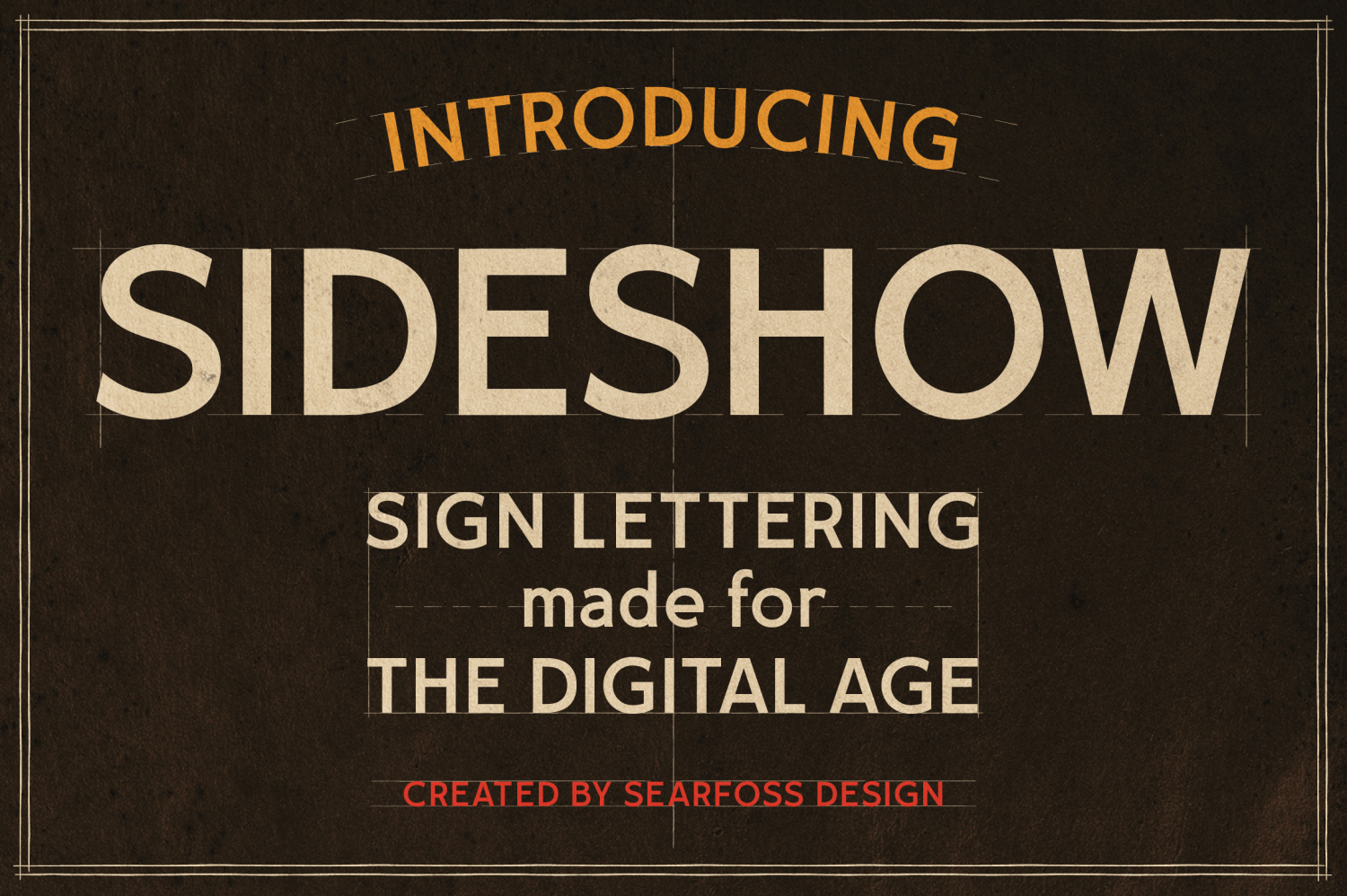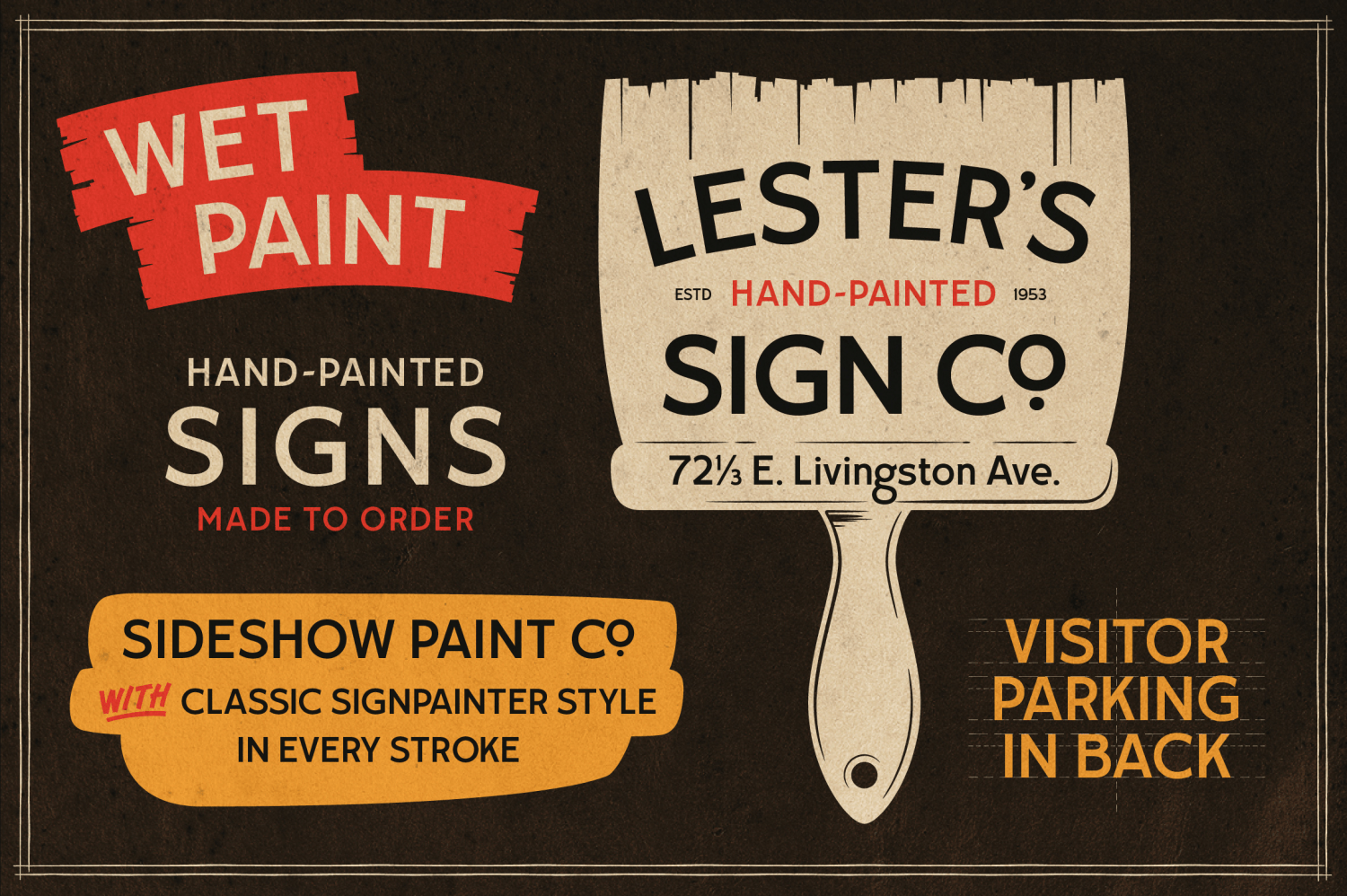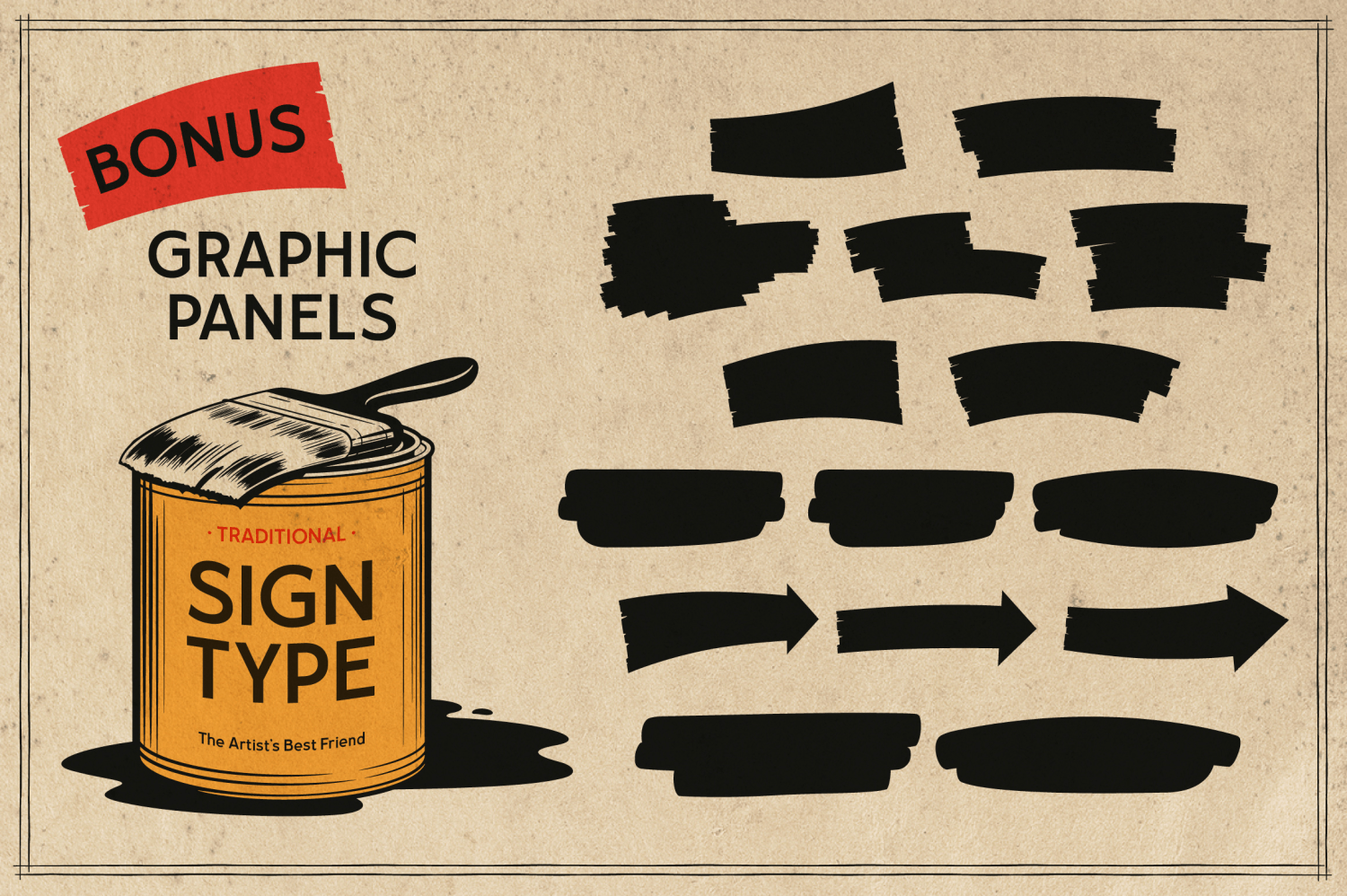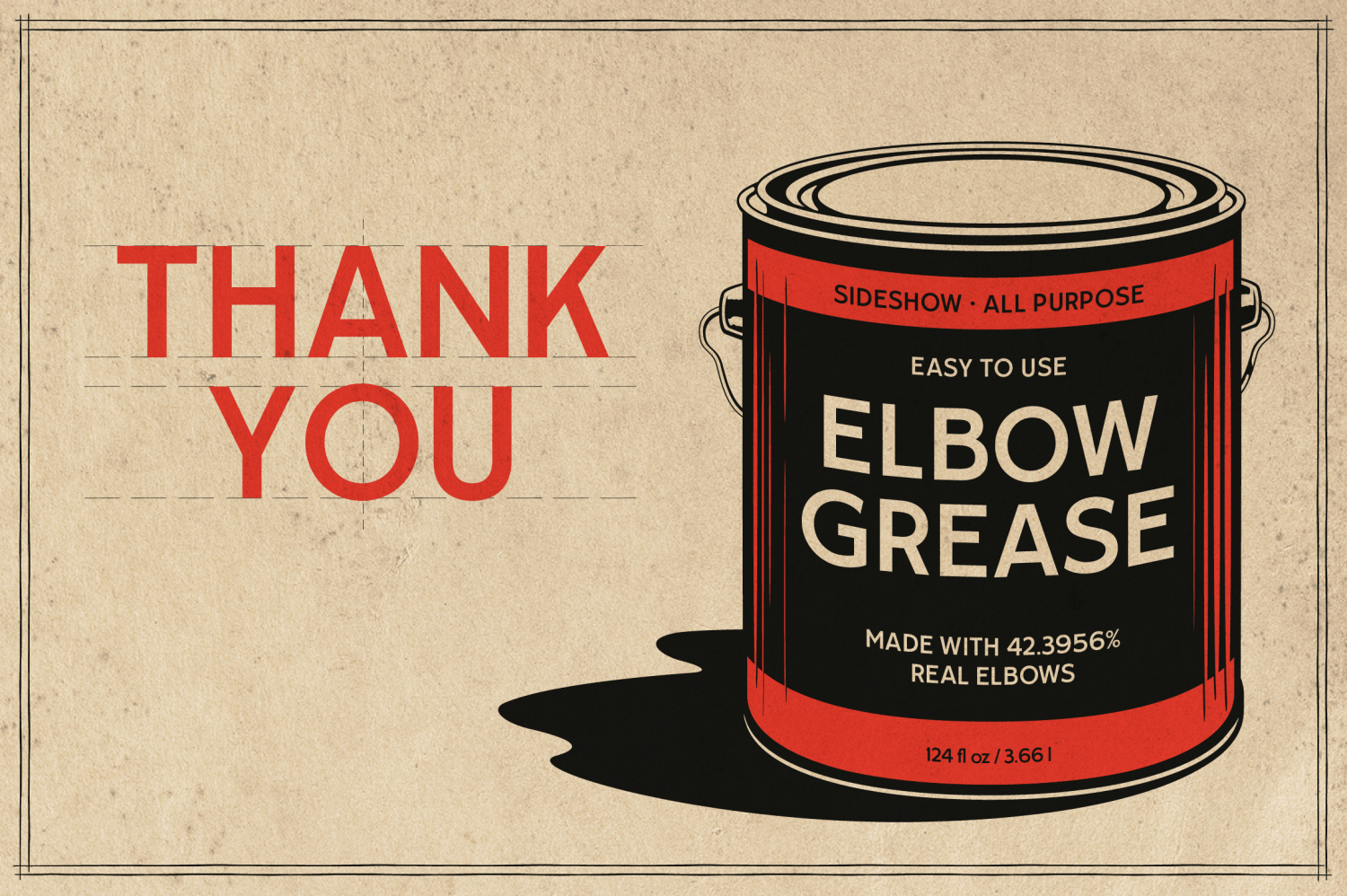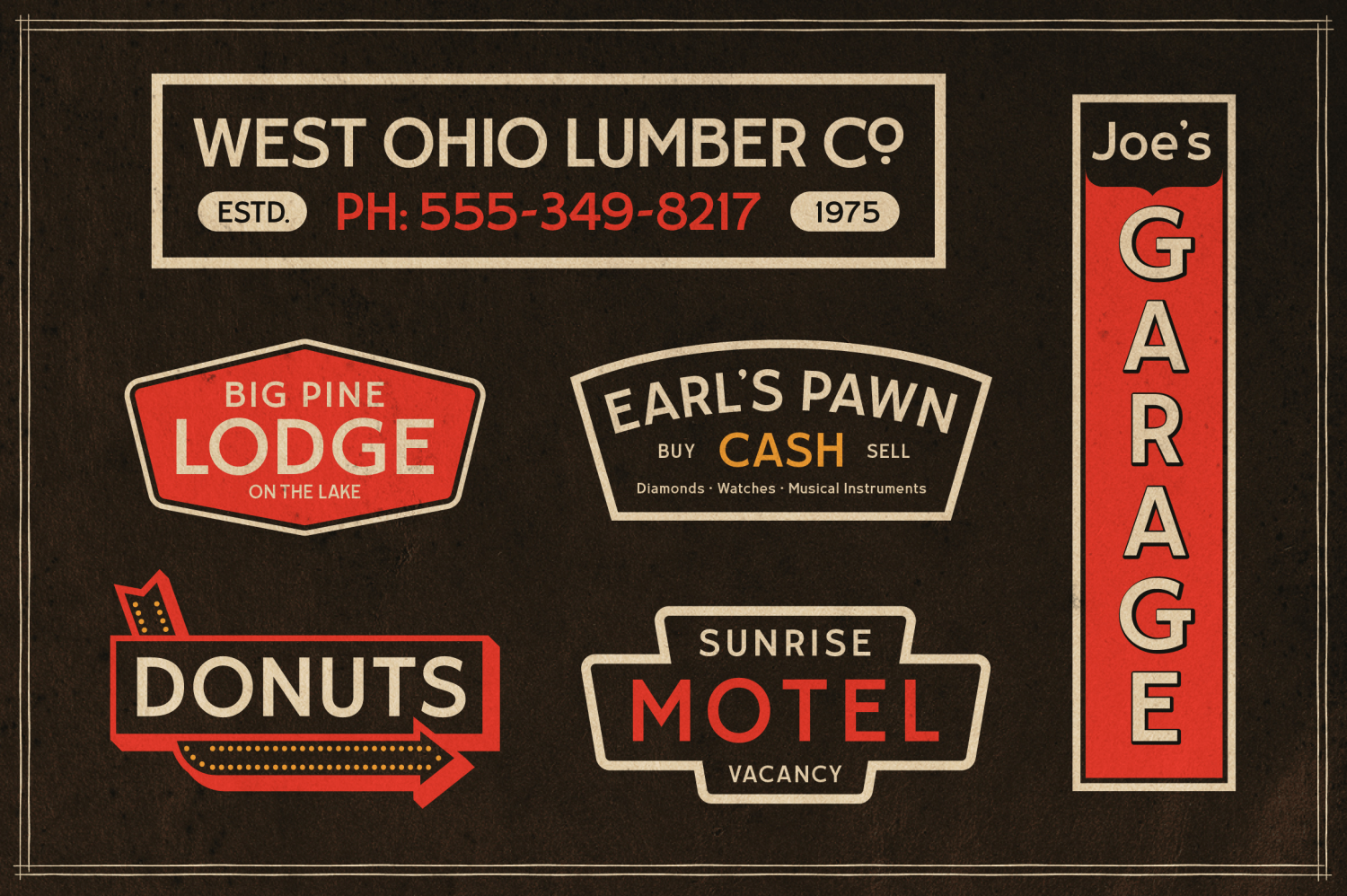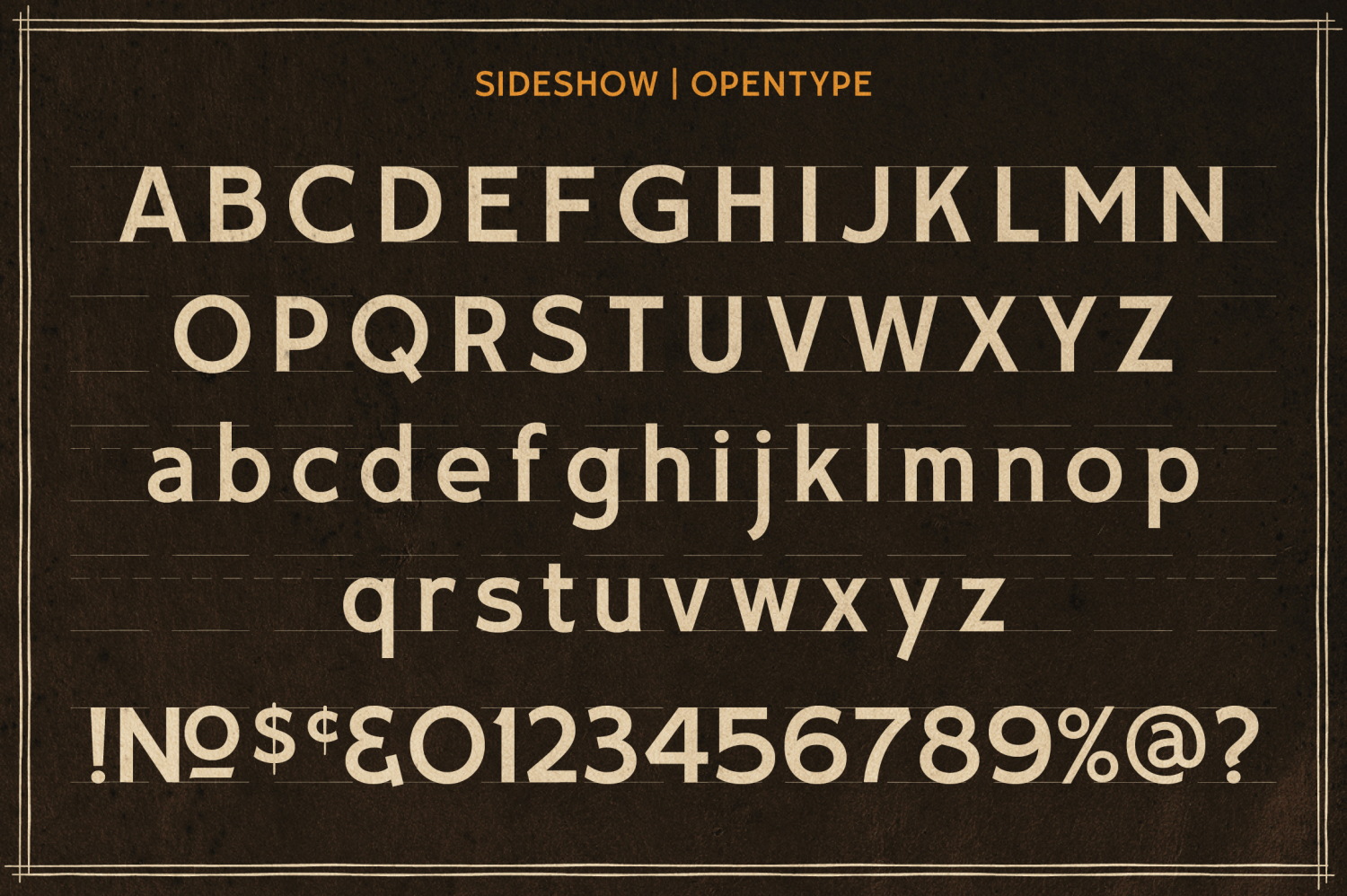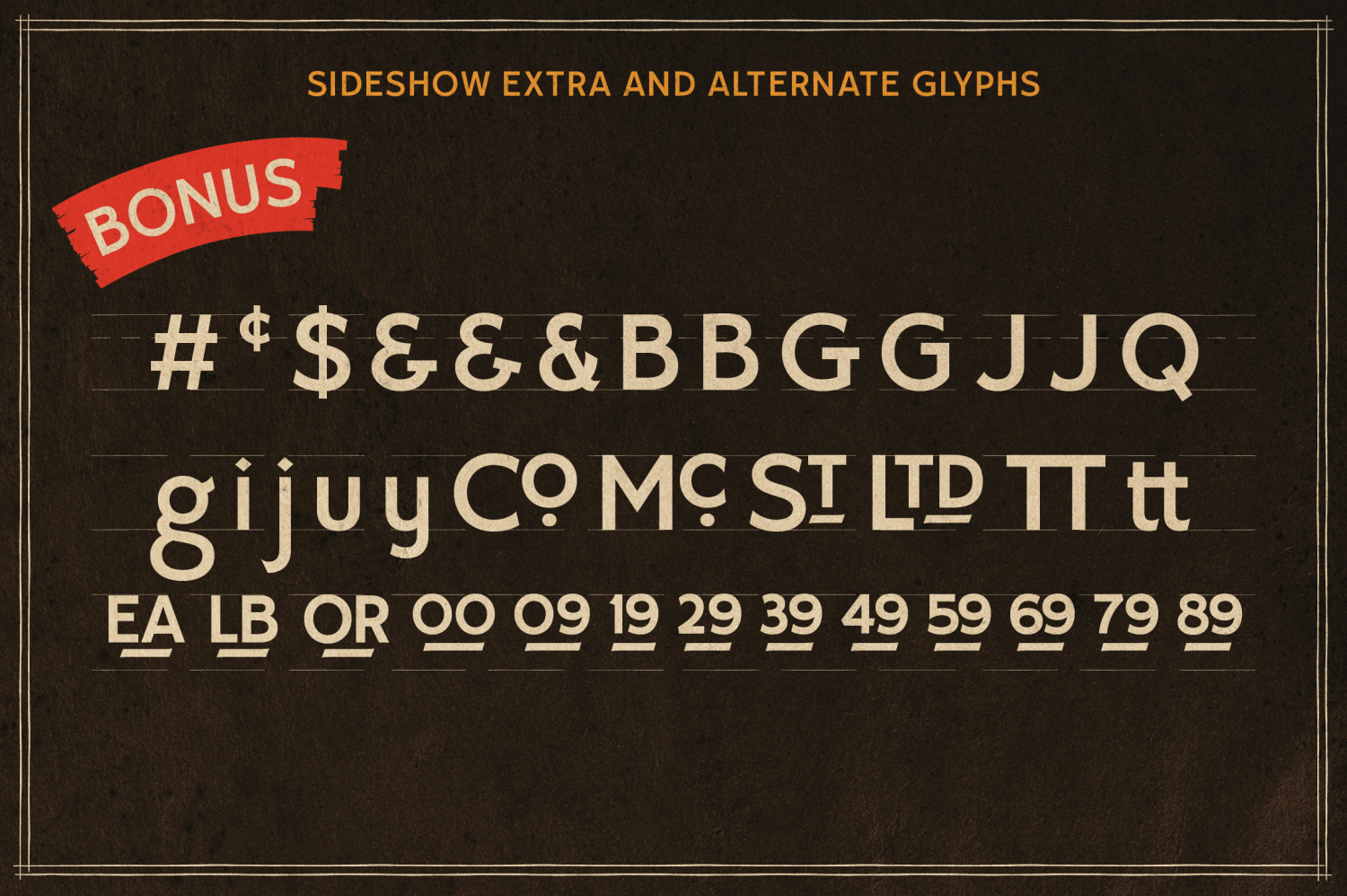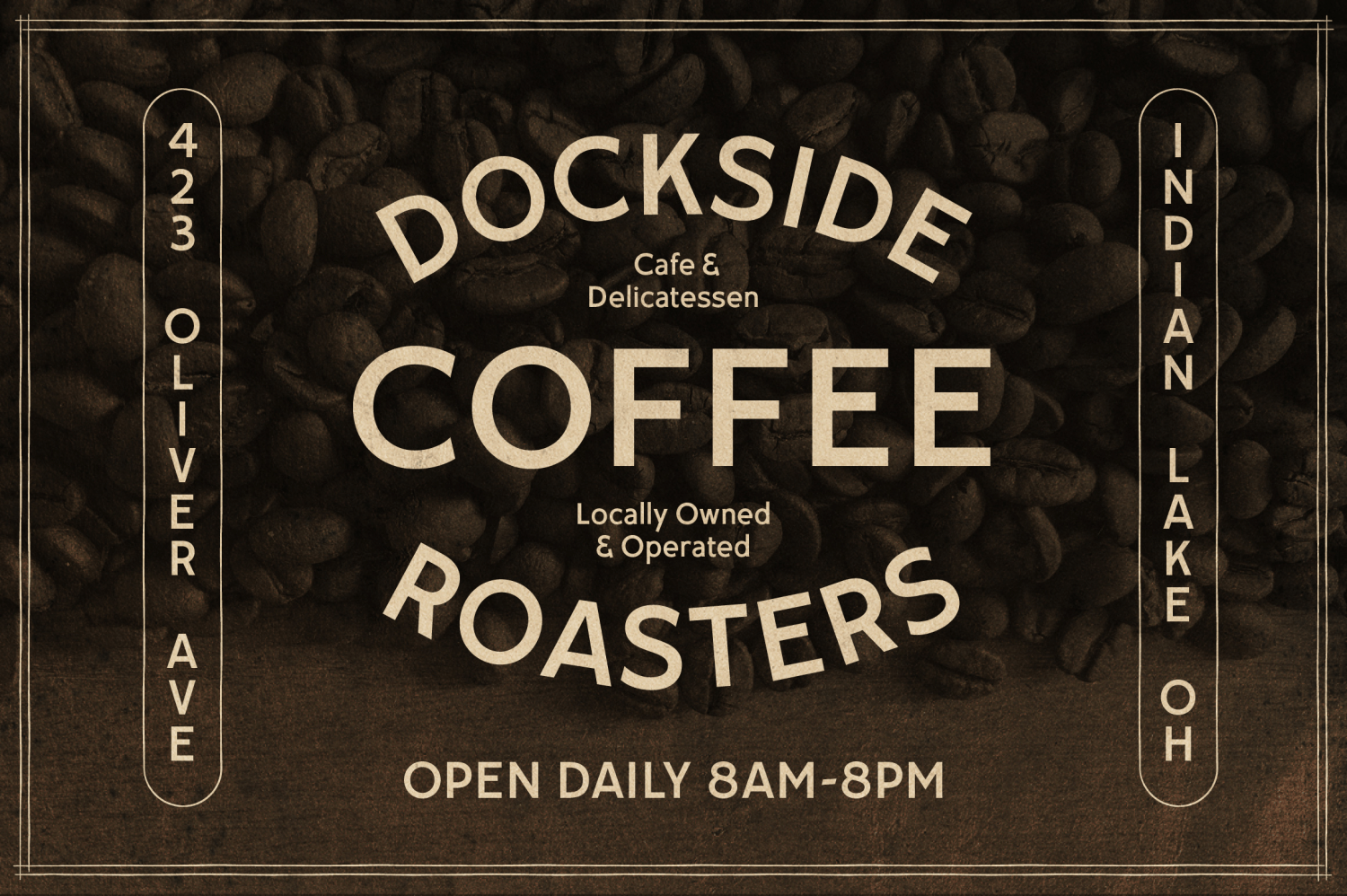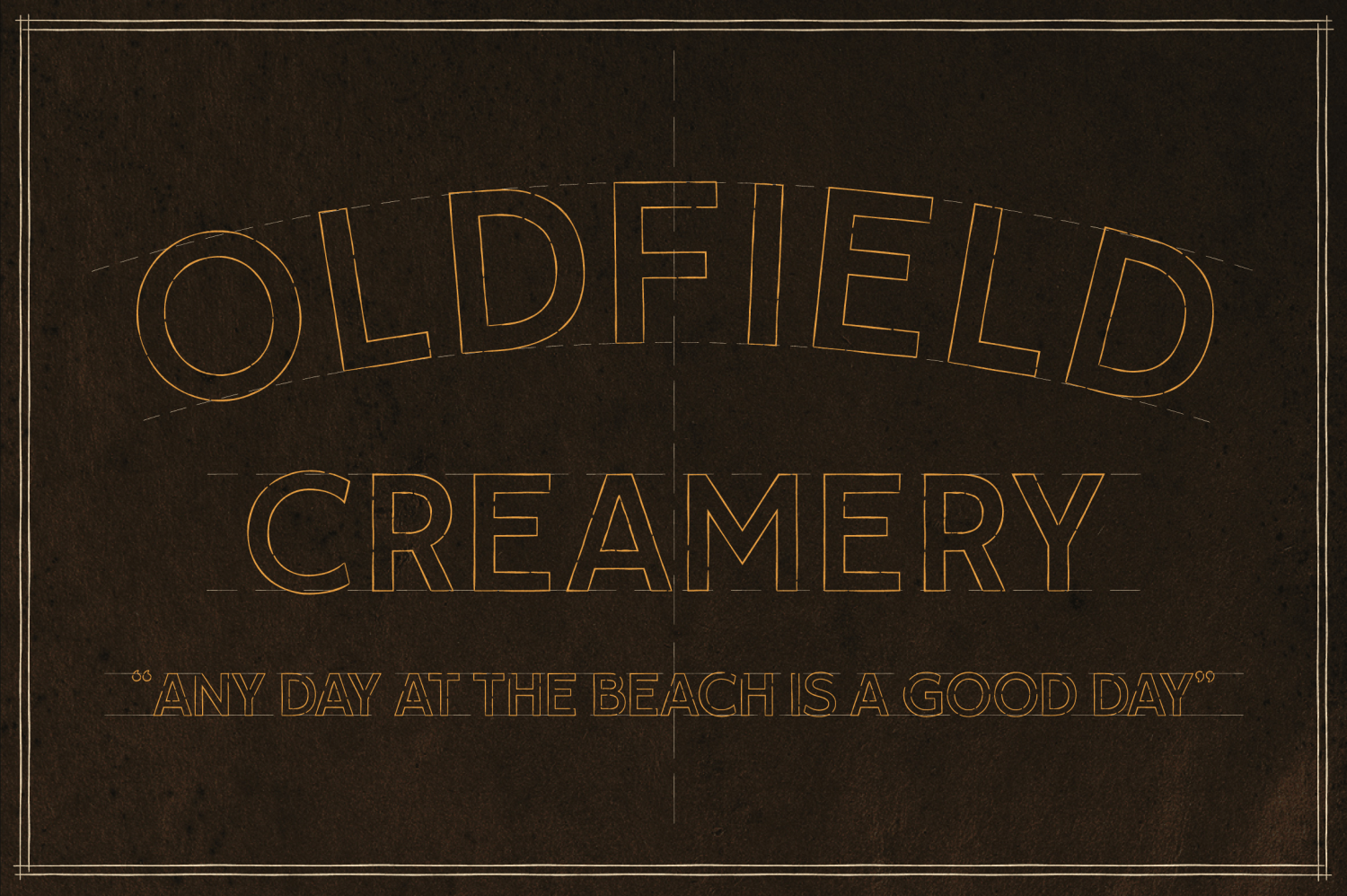
Sideshow
Sideshow brings the character of traditional sign painting into a versatile digital typeface built for modern design. Inspired by hand-lettered storefronts, roadside businesses, workshop signs, and vintage advertising, its broad proportions and sturdy sans serif construction feel practical, familiar, and full of personality.
Clean geometric forms give Sideshow excellent clarity, while subtly unconventional details keep it from looking sterile or overly polished. Its confident uppercase letters command attention in headlines and logos, while the friendly lowercase expands its range for menus, packaging, supporting copy, and layered typographic layouts. The letterforms also hold their shape beautifully along curves and arches, making Sideshow especially useful for badges, window graphics, painted signs, and dimensional branding.
A generous collection of OpenType extras helps recreate the resourcefulness of classic commercial lettering. Choose from alternate letters and symbols, decorative ampersands, sign-style abbreviations, custom letter combinations, fractions, and prebuilt underlined price endings. These thoughtful additions make it easy to add authentic detail without constructing every element by hand.
Sideshow is a natural fit for restaurants, coffee shops, garages, motels, farms, hardware brands, markets, breweries, apparel, packaging, posters, and retro-inspired identities. The included bonus graphic panels add hand-painted banners, arrows, brush shapes, and label elements that pair seamlessly with the typeface. Whether you’re building a weathered roadside sign or a clean contemporary brand with vintage roots, Sideshow gives your work the warmth and confidence of lettering made by hand.